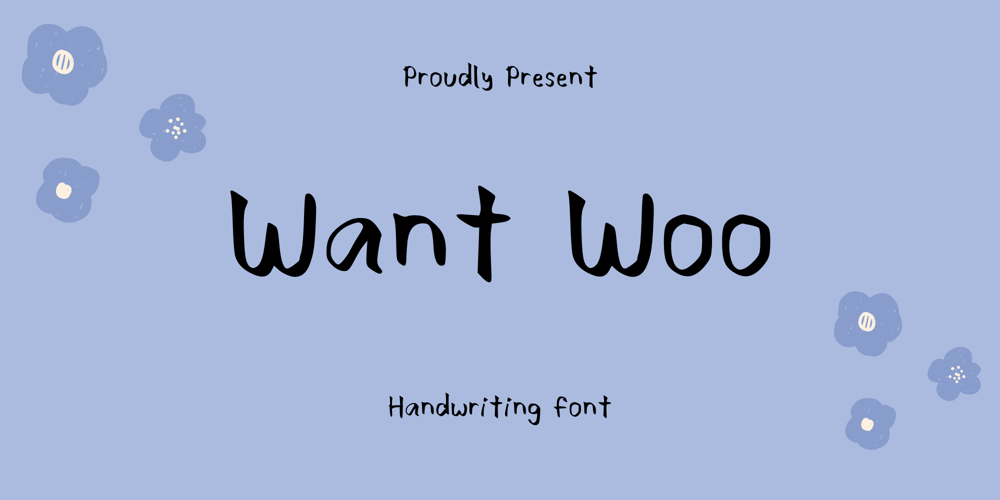
Want Woo Font Family was designed by published by Sidkia Fonts. Want Woo contains 1 styles and family package options. Want Woo Font is a unique and beautiful handwriting font that you can apply to your designs to make them look cooler. Ideal for crafting eye-catching posters, invitations, and designs that capture the spirit of carefree creativity, Want Woo font is sure to make your text stand out with a touch of adorable playfulness.